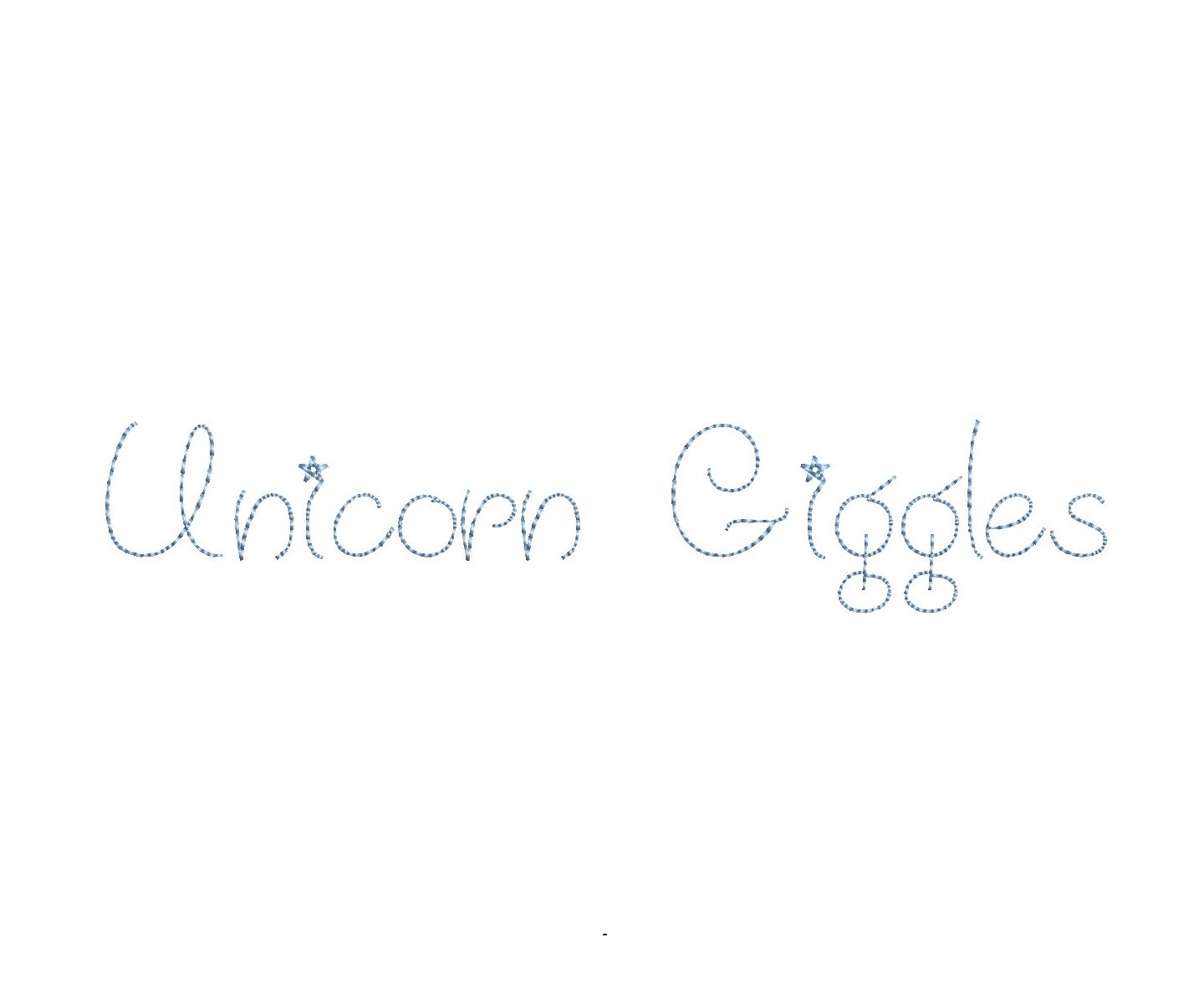
Unleash the magic of Unicorn Giggles Bean Stitch ESA font, an enchanting embroidery design crafted to elevate your creative ventures. Seamlessly compatible with Wilcom Studio e4.5.6 and Hatch 3 versions and beyond, this font guarantees flawless stitch precision and intricate detailing. Let your embroidery projects shine with the whimsical bean stitch pattern, adding charm and delight to any textile masterpiece, from monograms to intricate designs. Unlock endless creative possibilities with this font's versatility. Optimized for SEO, it ensures both visual brilliance and search engine prominence. Don't miss this exceptional embroidery asset to add a sprinkle of magic to your craft. Explore Unicorn Giggles ESA font now!